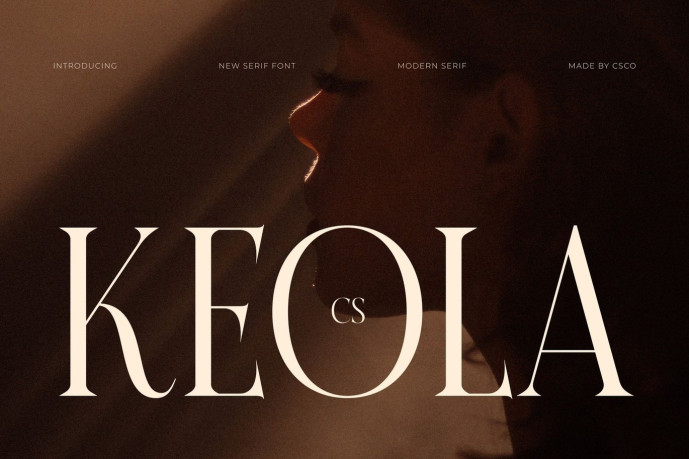
Keola – Modern Serif Font
CS Keola – Modern Serif Font: Where Timeless Elegance Meets Contemporary Precision High-Contrast Design with Refined Sophistication This is a modern serif font that embodies timeless elegance through graceful long serifs, high-contrast strokes, and carefully measured proportions. Its refined structure creates a sophisticated visual rhythm, while the sharp serif details enhance its luxurious and polished character. The result is a typeface that feels both classic and unmistakably contemporary.
Clean Minimal Shapes for Modern Luxury This font emphasizes clarity and balance without sacrificing visual richness. Its streamlined letterforms create a refined aesthetic that feels elegant, professional, and versatile. This minimalist approach allows the font to shine across both large display settings and refined editorial compositions.
Contemporary Elegance with Lasting Appeal By combining dramatic contrast, elongated serifs, and modern simplicity, this font creates a distinctive visual identity that bridges classic sophistication and contemporary design. Its graceful forms communicate prestige, confidence, and craftsmanship, making it an excellent choice for projects that demand a premium aesthetic with enduring appeal.
Perfect for Luxury products, Wedding Invitations, and Editorial Design Ideal for luxury products, fashion identities, editorial layouts, magazine covers, logos, high-end packaging, beauty branding, invitations, product campaigns, and other sophisticated creative projects. Its elegant letterforms make it perfect for typography that communicates refinement, exclusivity, and timeless style.